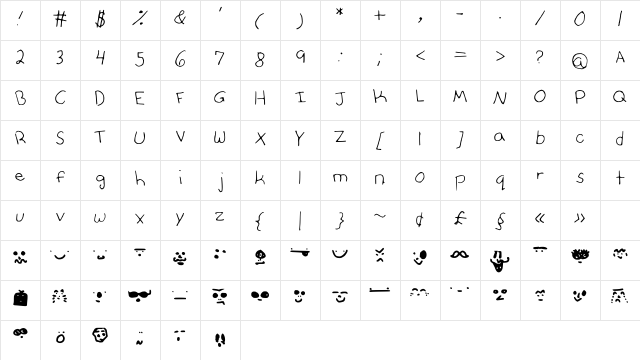
AnniesFontwithFaces Medium Free Font
AnniesFontwithFaces Medium
Design Context for AnniesFontwithFaces
AnniesFontwithFaces is a composed and adaptable typeface that performs quietly and consistently across a wide range of design contexts.
Pro Tip: Use AnniesFontwithFaces in both headline and body roles to test its range before committing to a single application.